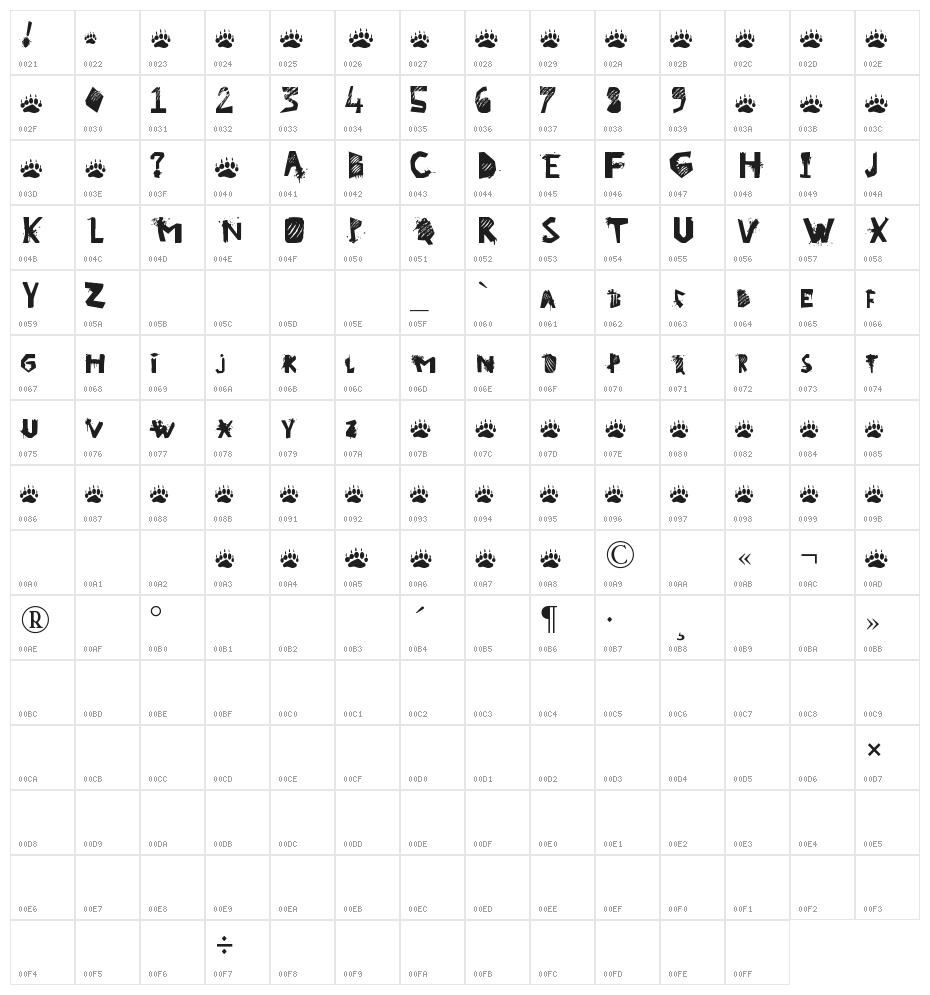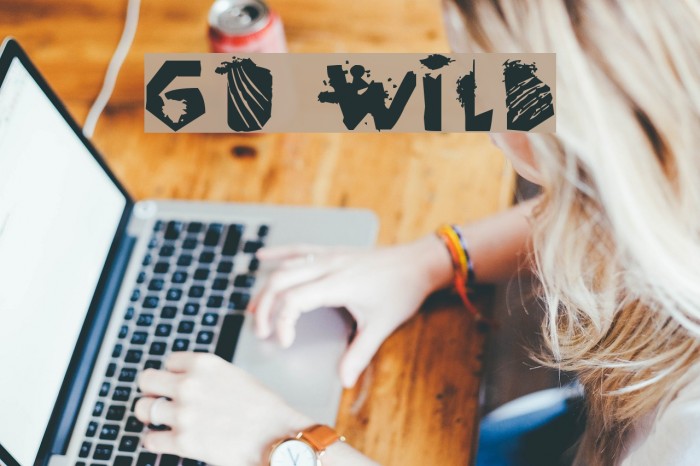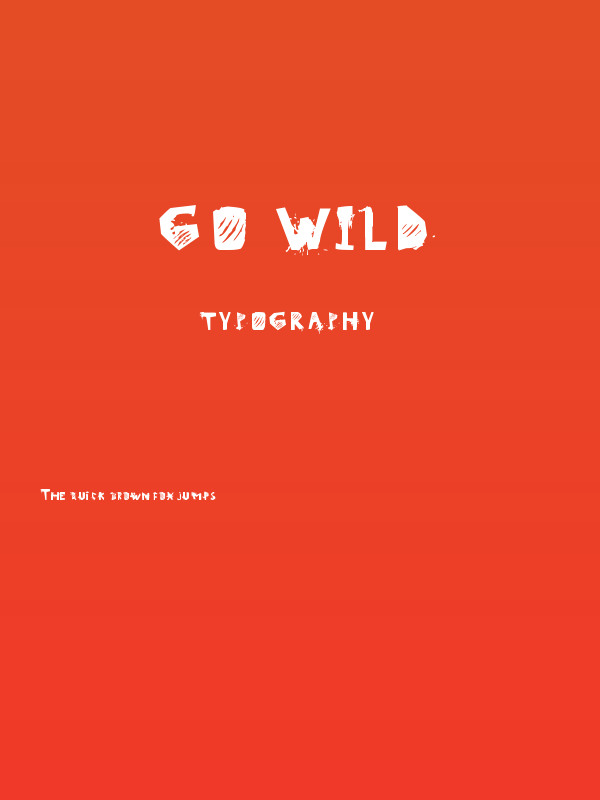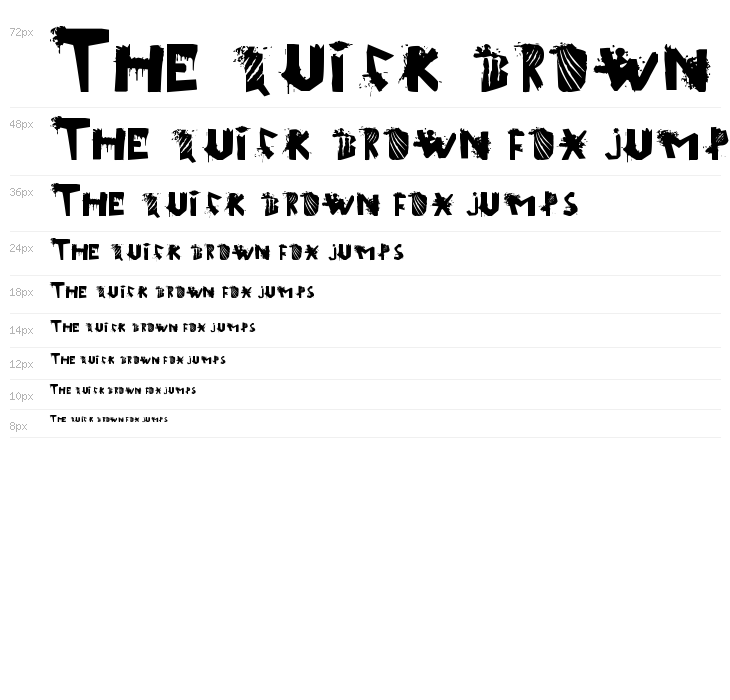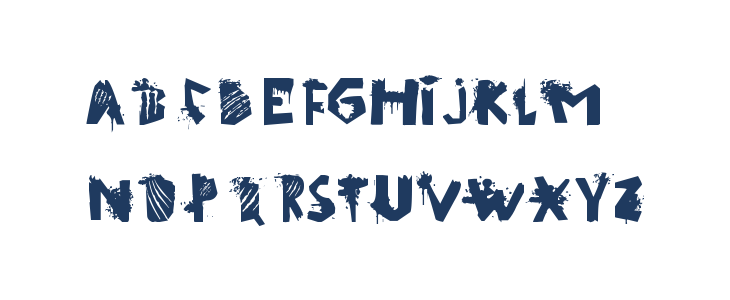
go wild Font
go wild Description
This font features a rugged, distressed style with a wild, untamed aesthetic. Each character appears as if it has been clawed or scratched, giving it a raw, primal look. The uppercase and lowercase letters maintain a consistent theme, with jagged edges and irregular shapes that suggest movement and energy. Numbers and special characters follow the same design, enhancing the overall cohesive appearance. The font's unique style makes it stand out, perfect for projects that require a bold, adventurous touch.
GO-WILD UPPERCASE
GO-WILD LOWERCASE
GO-WILD OTHER CHARS
| Proposed Projects | Ideal for adventure-themed posters, outdoor event branding, or edgy graphic designs. |